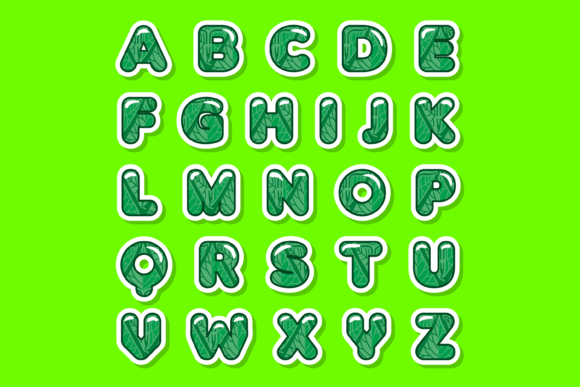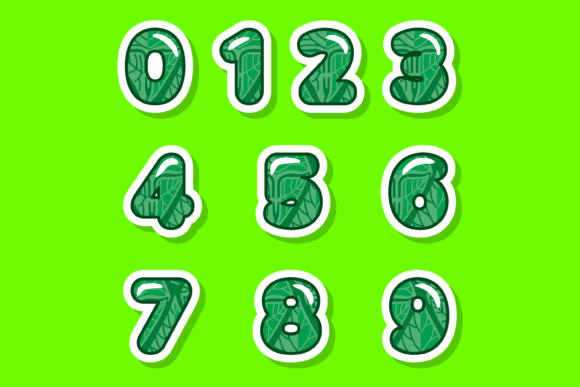
Tropical Font
About Tropical Font
Tropical is indeed an exceptionally stylish and vibrant color font that captures the essence of lush tropical foliage. With its leafy design and vibrant colors, this font adds a touch of exotic beauty and a refreshing feel to any creative project. Whether you’re designing custom graphics, crafting DIY projects, or creating stunning visuals, Tropical is an excellent choice that will instantly elevate your creations.
The captivating appearance of Tropical, inspired by the lushness of tropical landscapes, brings a sense of vibrancy and life to your designs. The intricate details of the leafy elements and the vibrant color palette evoke the tropical vibes, making your projects stand out and exuding an exotic charm.
Embrace the beauty and allure of Tropical and let it transport you and your audience to a tropical paradise. Whether you’re designing vacation-themed materials, party invitations, or simply want to infuse your designs with a touch of nature’s beauty, Tropical will be your perfect companion. Let this font add a splash of color and a refreshing feel to your designs, creating a truly captivating and tropical experience.